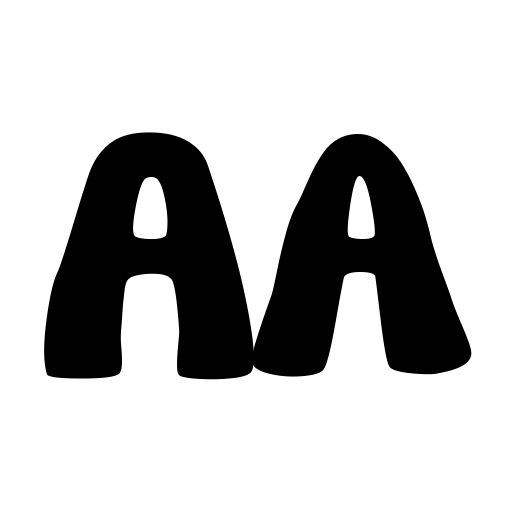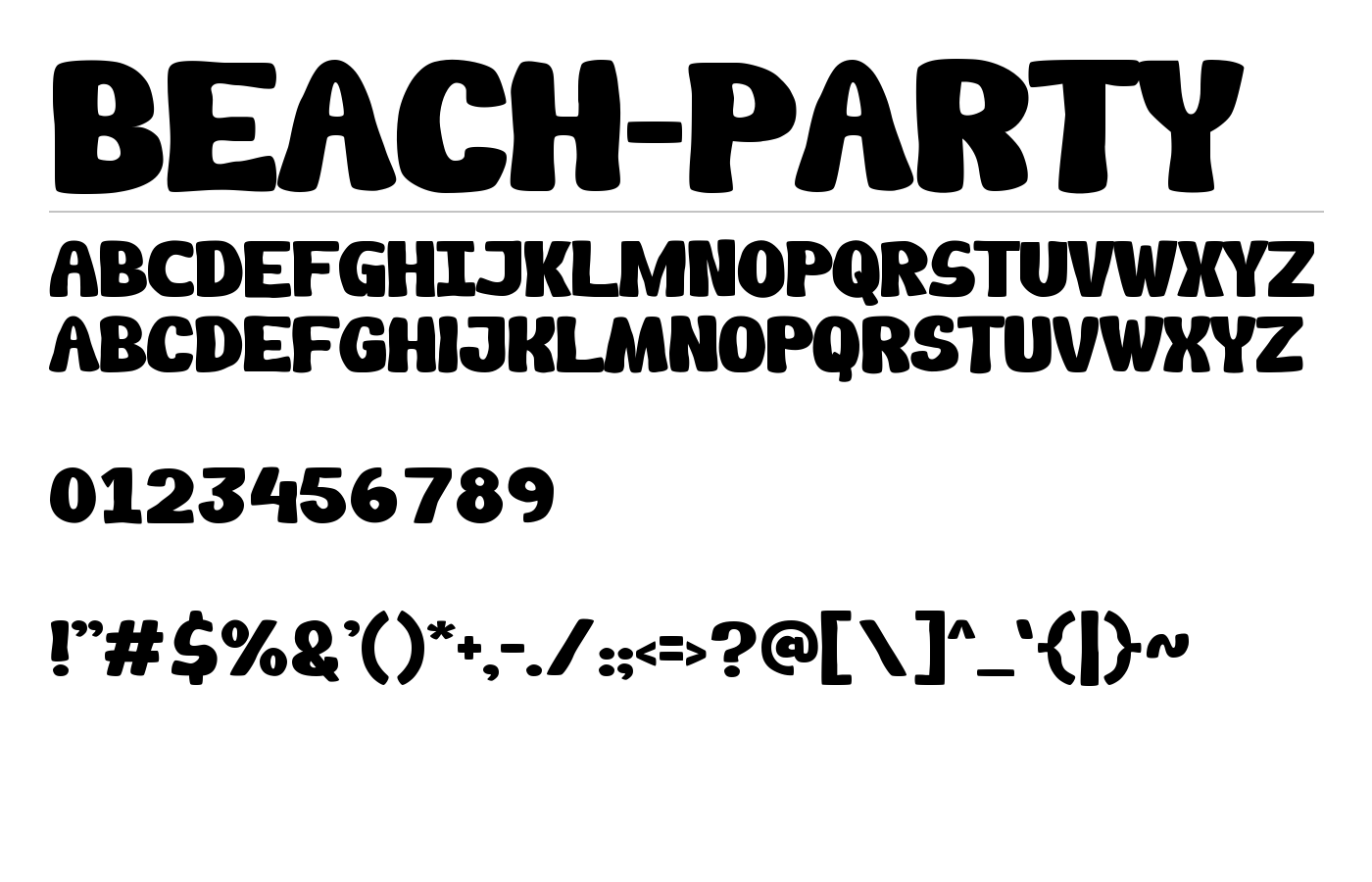
Beach-Party is a bold, playful sans serif font with rounded, chunky letterforms that give it a fun and friendly vibe. Its casual, slightly irregular shapes make it perfect for lively, informal designs like party invitations, children's products, or summer-themed branding. This font works best in headlines and display settings where a cheerful, approachable personality is desired.
Beach-Party Font
About Beach-Party Font